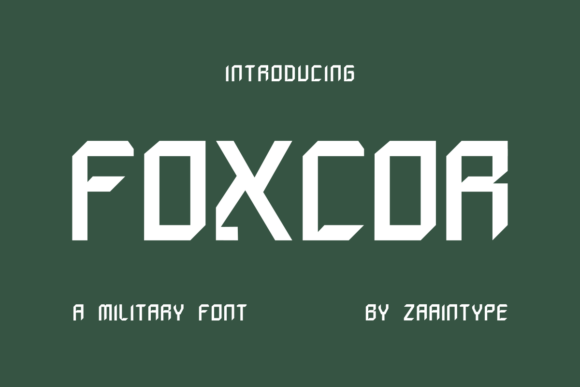
Introducing Foxcor Font: The Ultimate Choice for Bold and Authoritative Designs
In the world of typography, fonts play a crucial role in conveying the tone and personality of a brand or design. When it comes to creating a strong and commanding presence, a bold and military-inspired sans serif font is often the go-to choice. This is where Foxcor Font comes into play. In this article, we’ll explore the features, benefits, and uses of Foxcor Font, and why it’s the perfect choice for projects that demand a tough and authoritative visual identity.
What is Foxcor Font?
Foxcor Font is a bold, military-inspired sans serif font that features strong lines and distinctive letterforms. Its sharp, structured design ensures readability while delivering a powerful, rugged look. With its bold character, Foxcor is the ideal choice for military, industrial, or action-oriented projects, providing a tough yet refined visual identity for your designs.
Key Features of Foxcor Font
- Bold and Military-Inspired Design: Foxcor Font boasts a bold and military-inspired design that exudes discipline and strength.
- Strong Lines and Distinctive Letterforms: The font features strong lines and distinctive letterforms that set it apart from other sans serif fonts.
- High Readability: Despite its bold design, Foxcor Font ensures high readability, making it perfect for use in a variety of projects.
- Versatile: Foxcor Font is versatile and can be used in a range of projects, from logos and posters to branding and military or industrial-themed designs.
Use Cases for Foxcor Font
Foxcor Font is perfect for projects that demand a commanding and authoritative presence. Here are some use cases where Foxcor Font shines:
- Logos: Foxcor Font is ideal for creating logos that require a strong and bold presence.
- Posters: The font is perfect for creating posters that need to grab attention and convey a sense of authority.
- Branding: Foxcor Font can be used in branding projects where a tough and refined visual identity is required.
- Military or Industrial-Themed Designs: The font is specifically designed for military or industrial-themed designs, making it a top choice for projects in these industries.
Benefits of Using Foxcor Font
Using Foxcor Font offers several benefits, including:
- Instant Recognition: The bold design of Foxcor Font ensures instant recognition and attention-grabbing.
- Authority and Discipline: The font exudes authority and discipline, making it perfect for projects that require a commanding presence.
- Versatility: Foxcor Font can be used in a range of projects, from print to digital media.
- Readability: The font ensures high readability, even at smaller font sizes.
Tips for Using Foxcor Font
Here are some tips for using Foxcor Font effectively:
- Use it Sparingly: Foxcor Font is bold and attention-grabbing, so use it sparingly to avoid overwhelming the reader.
- Pair it with Other Fonts: Pair Foxcor Font with other fonts to create visual interest and add depth to your design.
- Choose the Right Color: Choose a color that complements the bold design of Foxcor Font and enhances its impact.
In conclusion, Foxcor Font is a bold and military-inspired sans serif font that is perfect for projects that demand a commanding and authoritative presence. With its strong lines, distinctive letterforms, and high readability, Foxcor Font is the ideal choice for logos, posters, branding, and military or industrial-themed designs. By using Foxcor Font, you can create a tough yet refined visual identity for your designs that exudes discipline and strength.